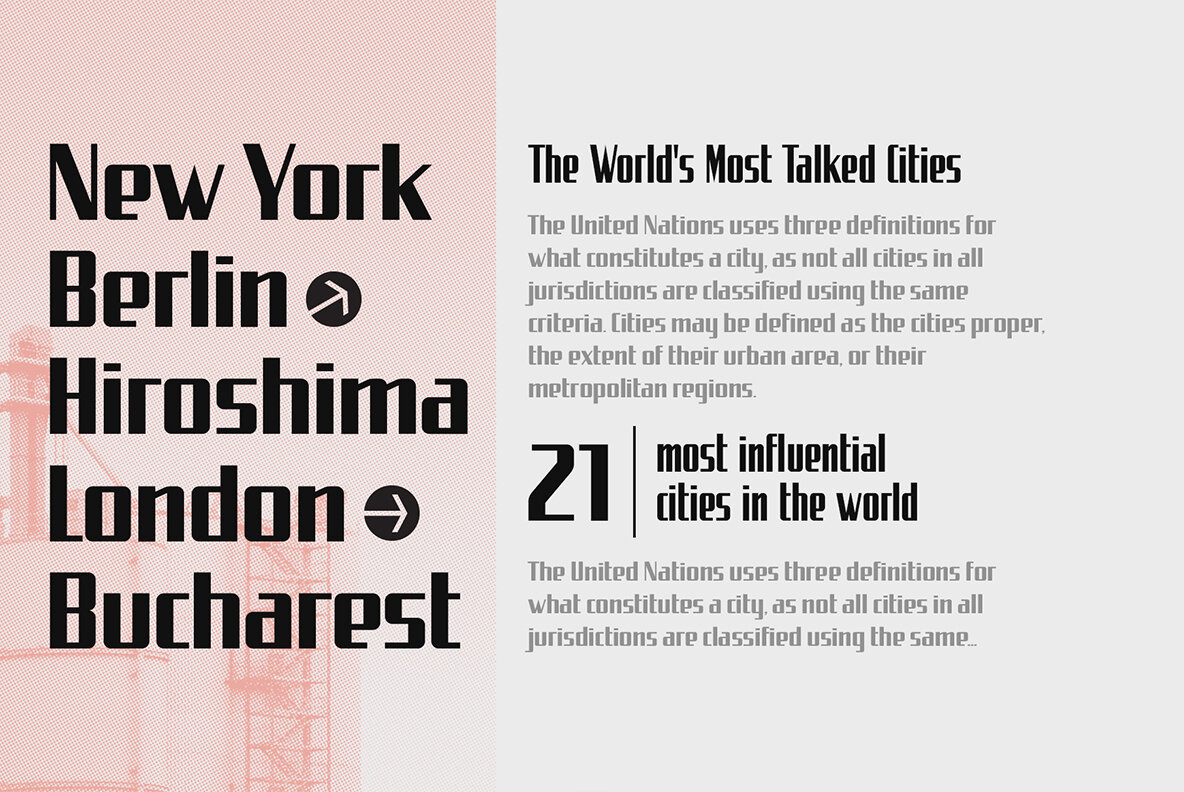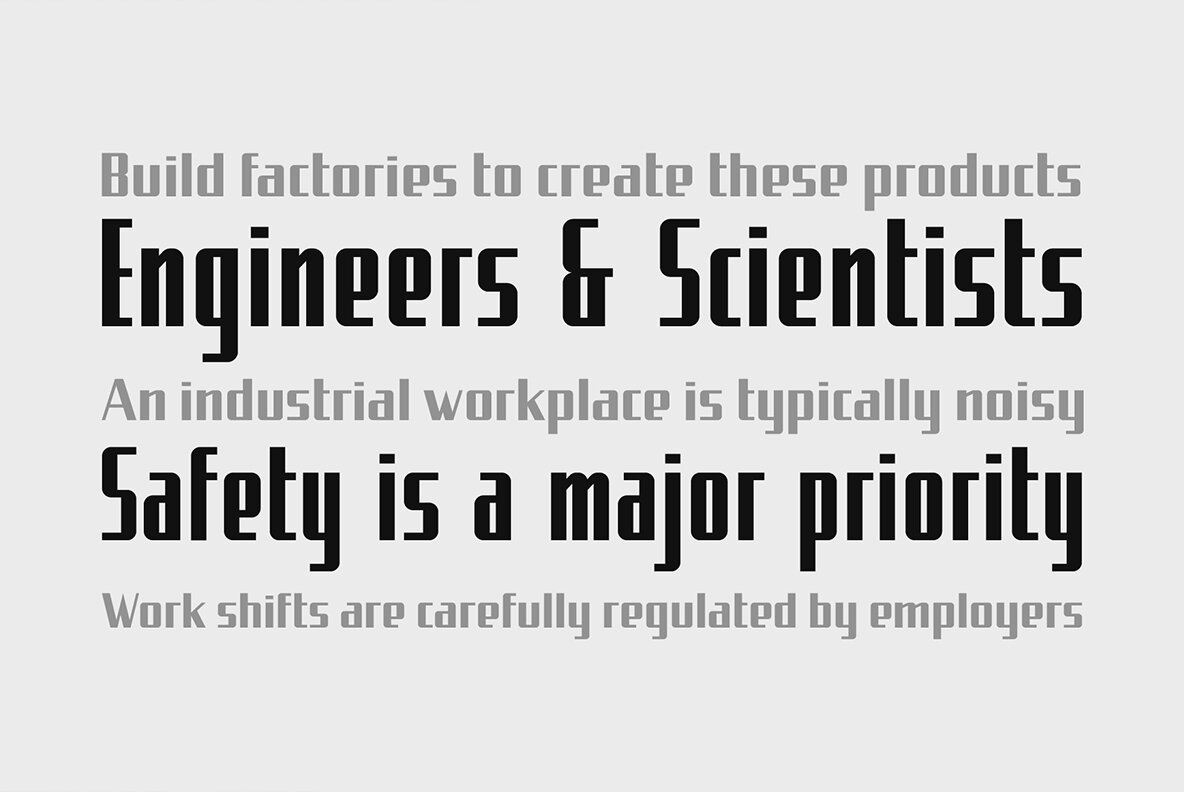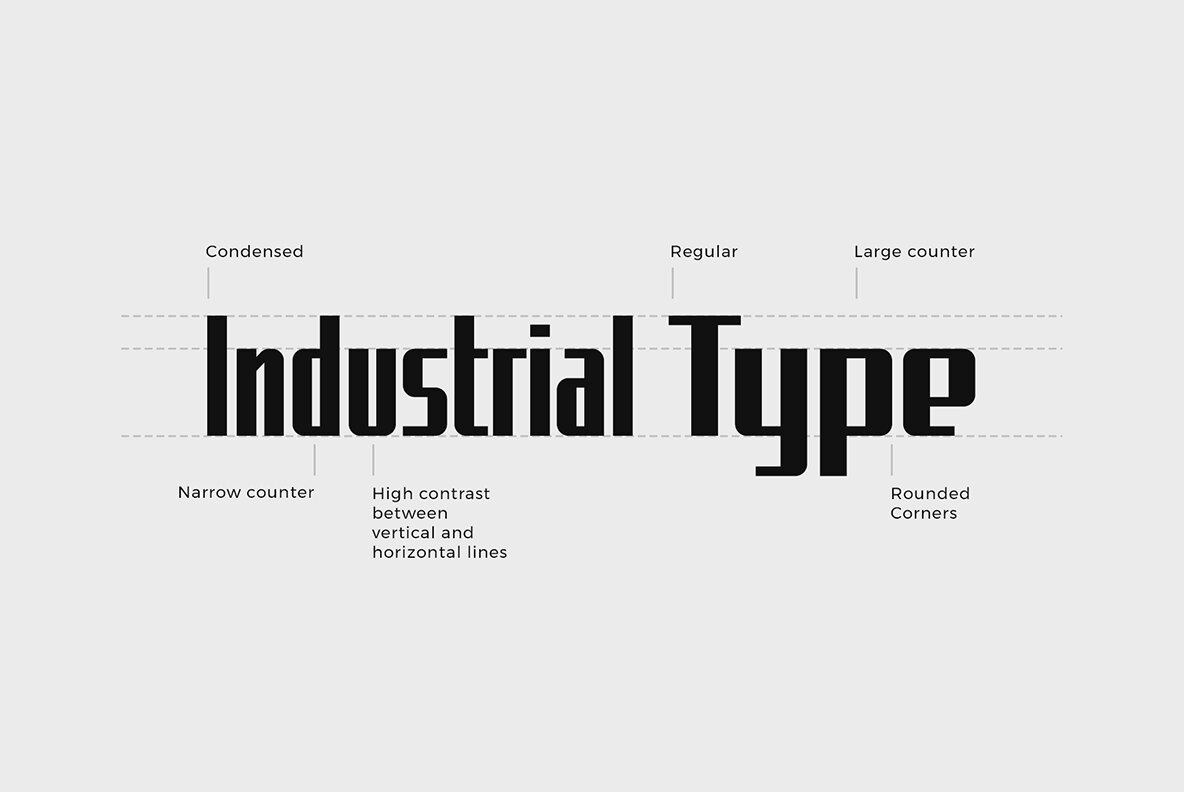
Uphead Typeface Font
UPHEAD is an upper and lowercase sans serif industrial style font. This font is inspired by the street signs of Eastern Europe and has a nice balance of hard lines and smooth curves, but still maintaining a strong appearance with modern touches.
UPHEAD includes two styles, Uphead Regular and Updead Condensed, for both styles extensive Latin script language support, characters set A-Z , numerals and punctuation. Uphead is the perfect font for industrial logo designs, headers, small and block text.
*Upper and lowercase font